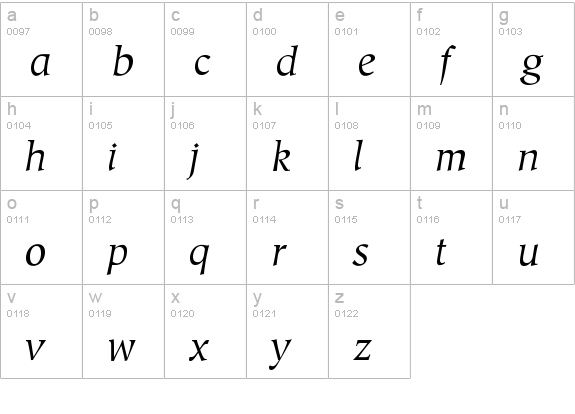
Hiroshige Book Italic is a comfortable, highly readable, italic variant in the Hiroshige typeface family \xE2\x80\x94 well suited to long-form body text, articles, and editorial content.
Hiroshige Book Italic font exudes elegance and sophistication with its graceful curves and delicate strokes. This font is perfect for adding a touch of refinement to any design project, whether it's for branding, invitations, or editorial layouts. The italic style adds a sense of movement and fluidity, making it a versatile choice for both headers and body text. Best of all, Hiroshige Book Italic font is available for free download at FontsMarket.com. This means you can easily enhance your projects with this exquisite typeface without any cost. Don't miss out on the opportunity to elevate your designs with the timeless beauty of Hiroshige Book Italic font. Download it now and let your creativity shine!